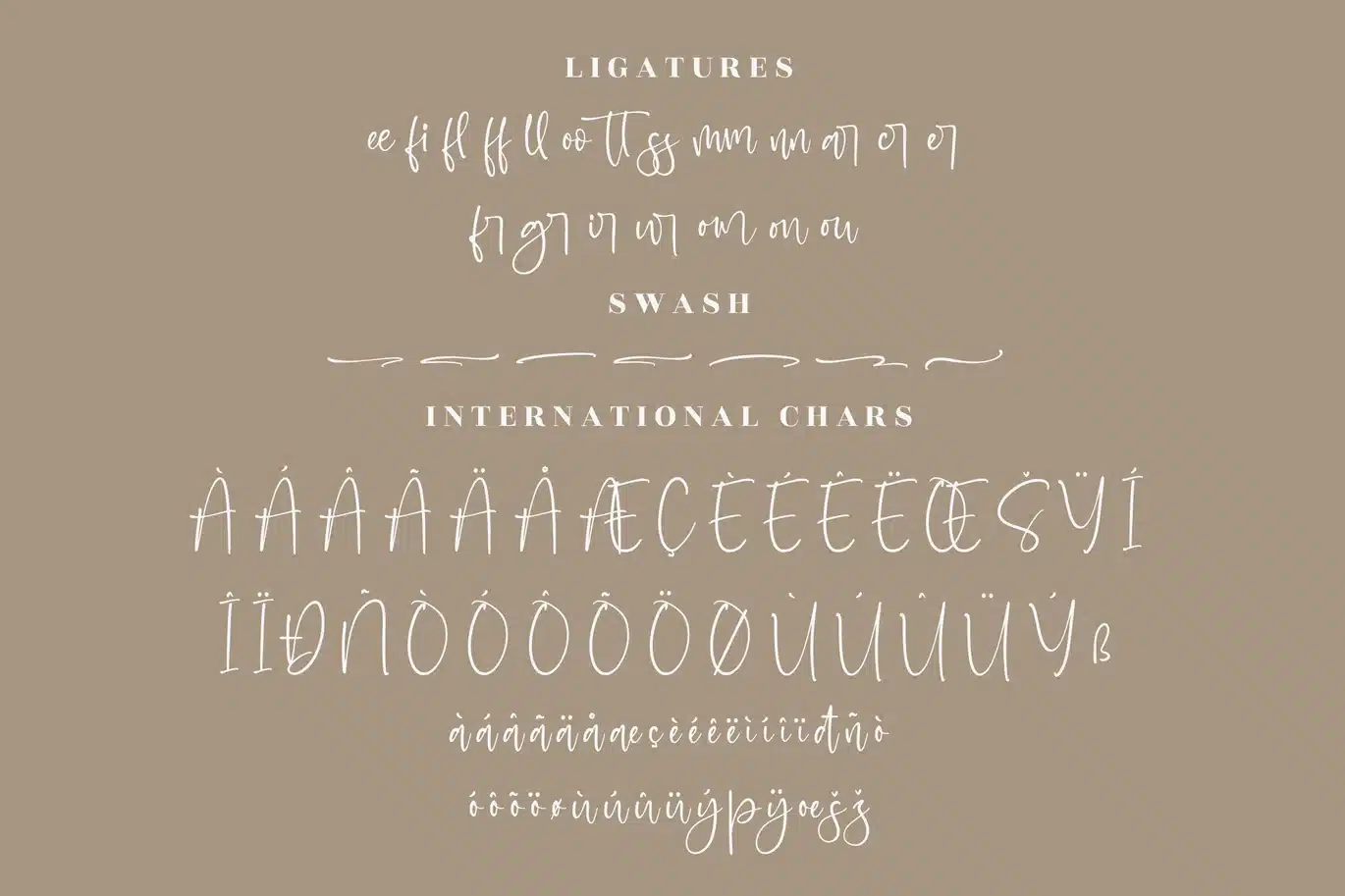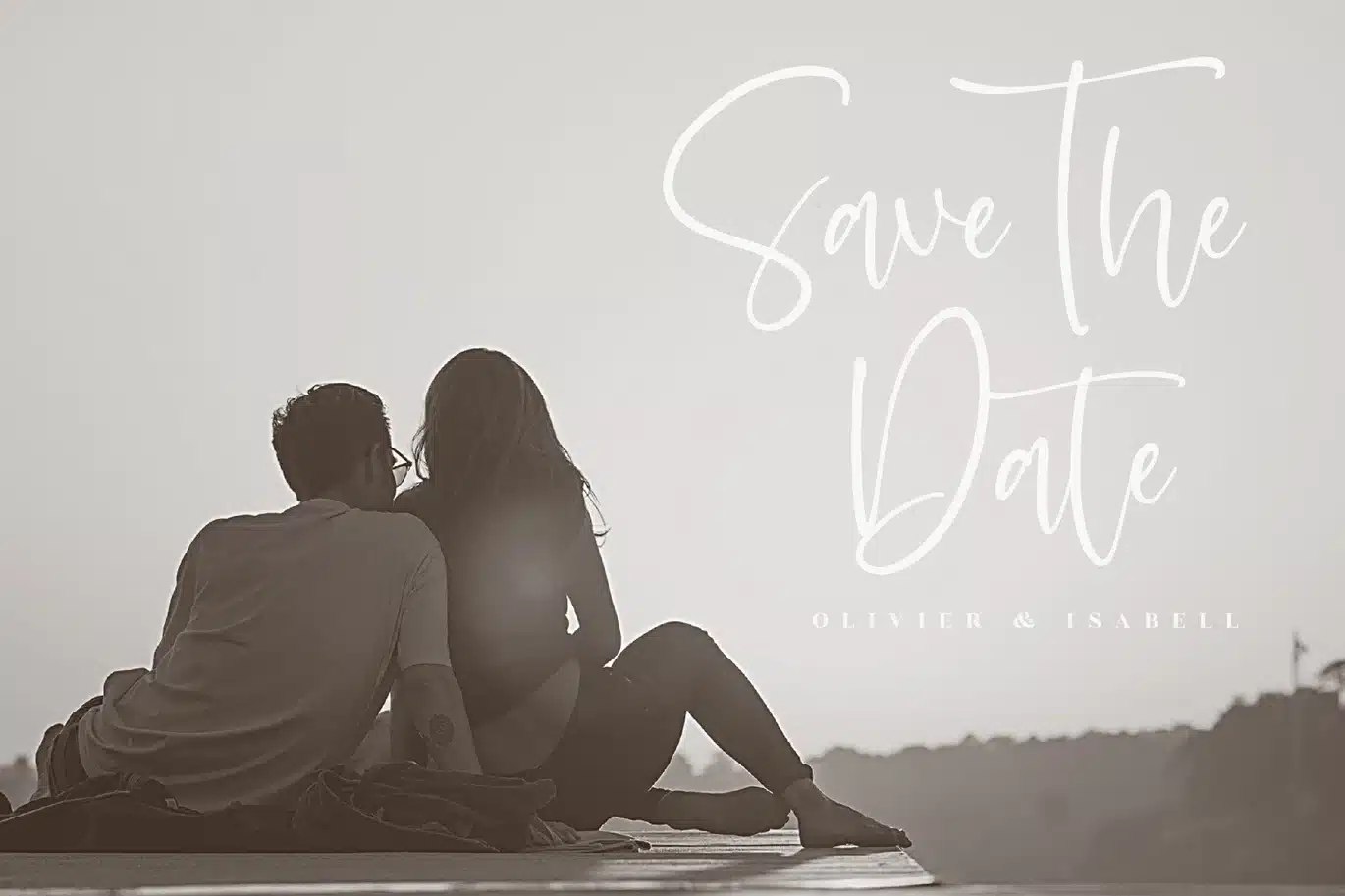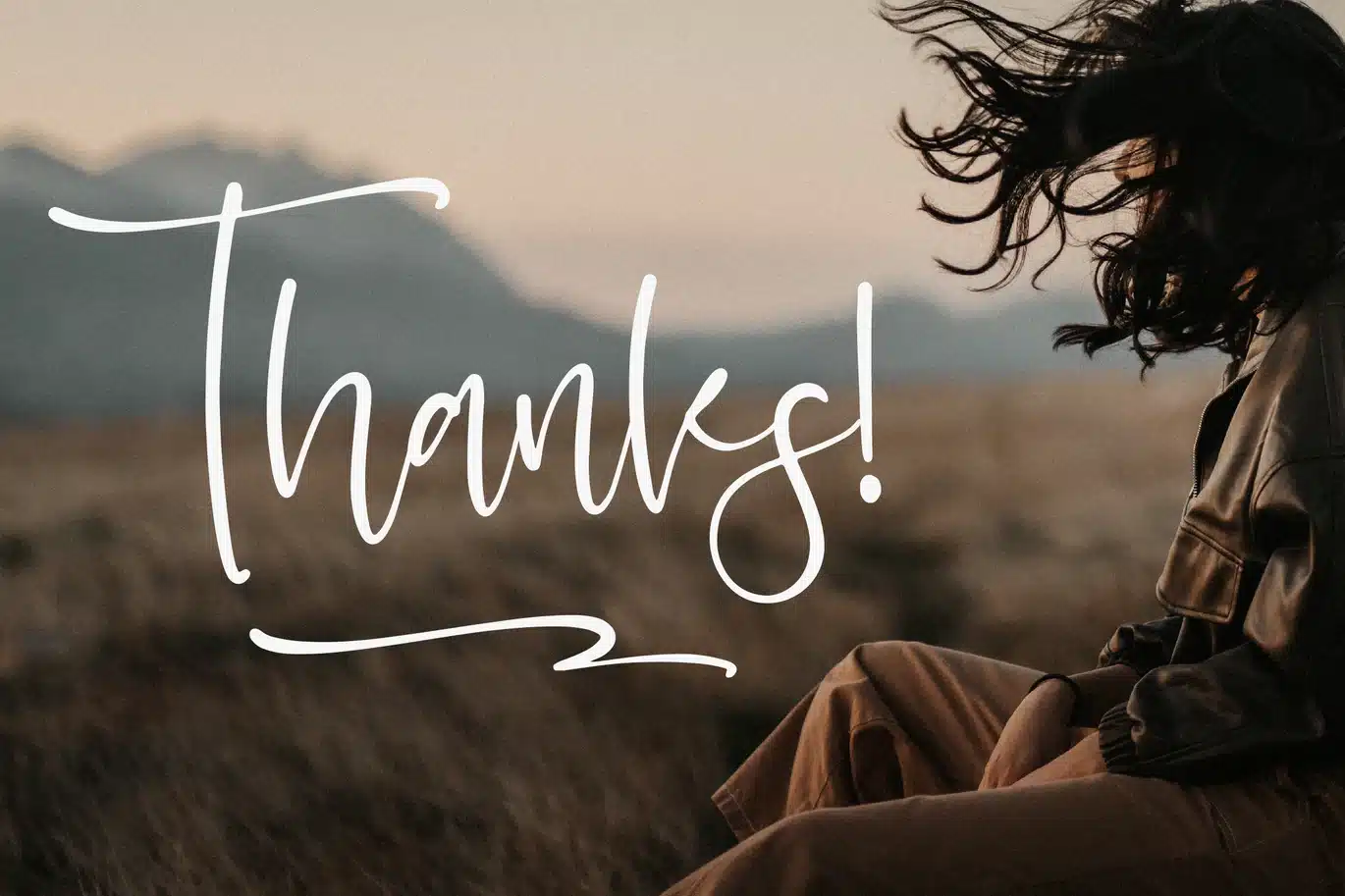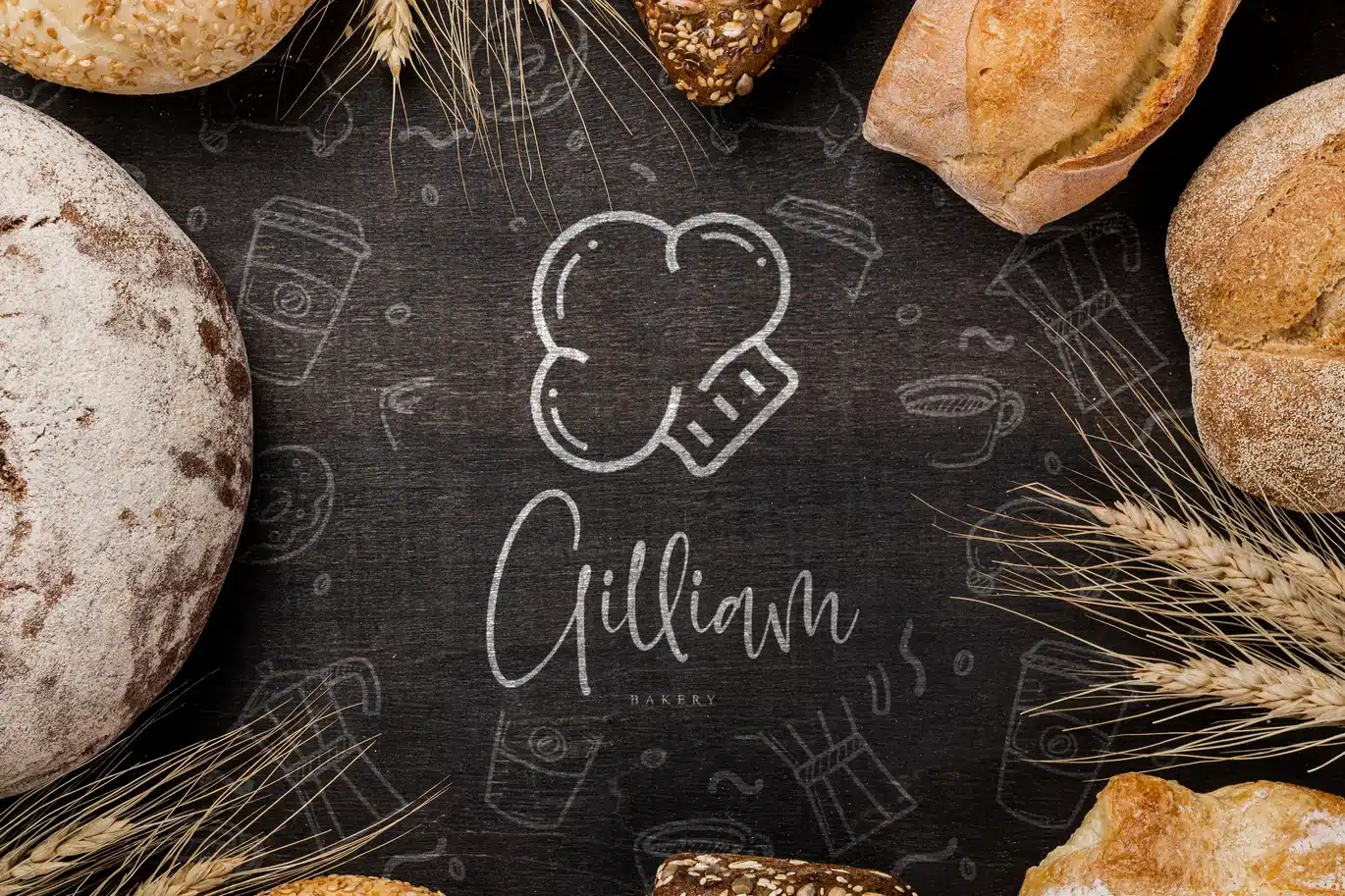
Santilaria Modern Handwritten Font
Santilaria is a stylish handwritten font with flowing strokes and elegant swashes. Its organic curves and subtle variations give your designs an authentic, handcrafted feel—ideal for fashion branding, boutique logos, and heartfelt stationery. Perfectly balancing modern flair with natural charm, Santilaria makes every word look effortlessly graceful.
- Single Regular style with beautiful swashes and alternates
- OpenType ligatures for smooth connections
- Full multilingual character set for global projects
- Hand-drawn texture that adds warmth and personality
Perfect for:
- Fashion & lifestyle branding
- Wedding invitations & save-the-dates
- Social media quotes & graphics
- Personalized stationery & cards
- Elegant packaging & labels